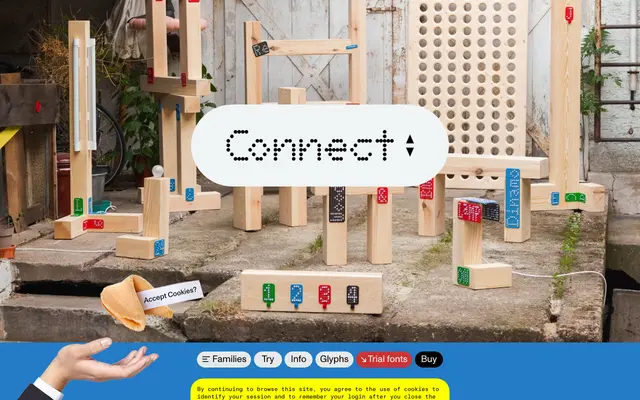
ABC Connect
Dinamo Typefaces · Fabian Harb, Louis Brousseaud, Frédéric Jaman, Johannes Breyer, Oliver-Selim Boualam, Lukas Marstaller · 2023
A digital dot font built on the ABC Connectors grid, with proportional and monospaced cuts, italics, and five screw-head dot styles.
A dot-matrix display by Fabian Harb with Louis Brousseaud, Frederic Jaman, Johannes Breyer, Oliver-Selim Boualam and Lukas Marstaller, built on the ABC Connectors physical grid system. Comes in monospaced and proportional styles, both with matching italics, and ships with five screw-head dot variants: Flat, Torx, Hex, Nail and Phillips. Dinamo describe it as probably the world's first italic dot font.
Dinamo describes Connect as a digital dot font based on the ABC C-o-n-n-e-c-t-o-r-s grid, available in monospaced and proportional styles with corresponding italics, plus five screw-head dot styles (Flat, Torx, Hex, Nail, Phillips).